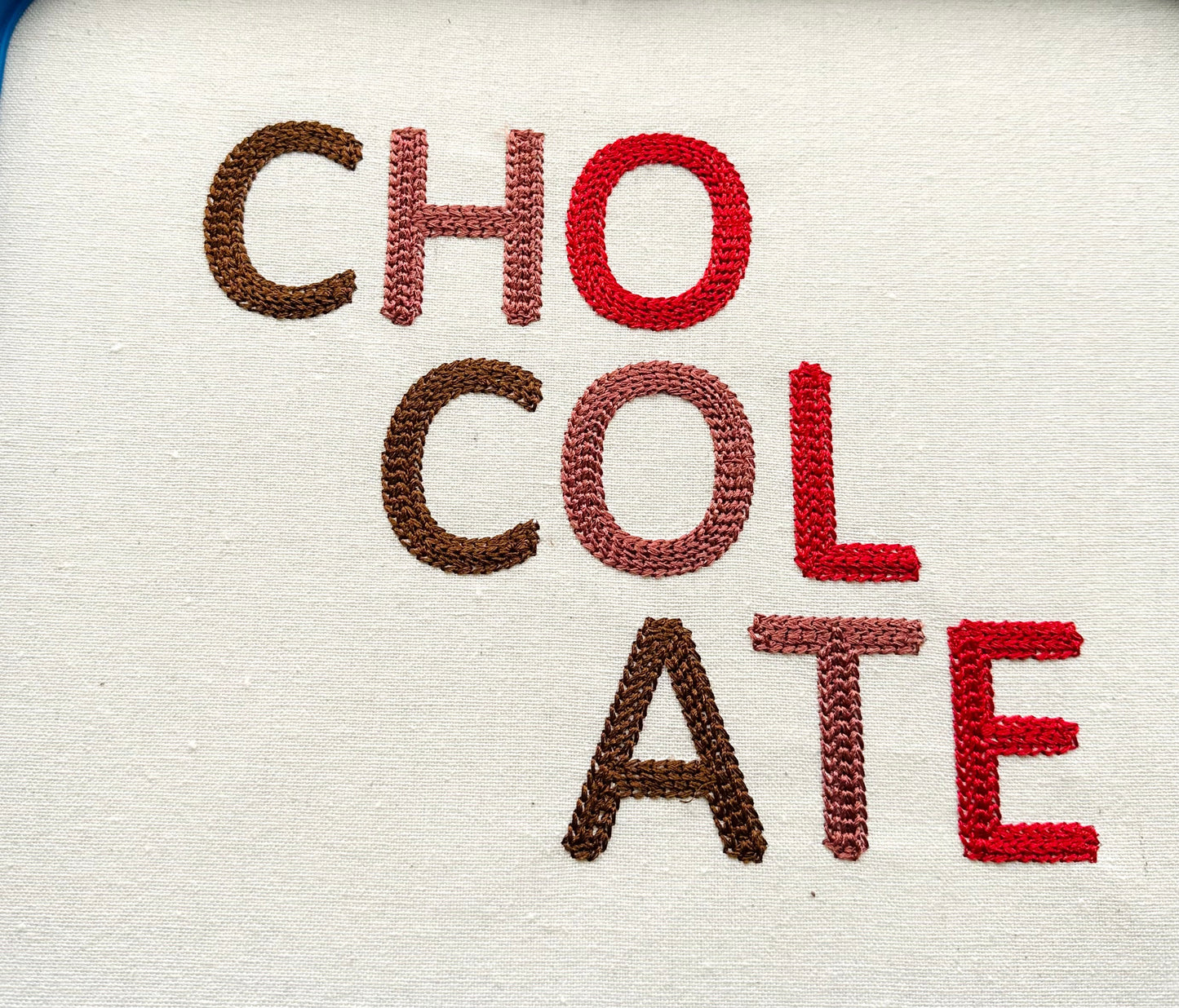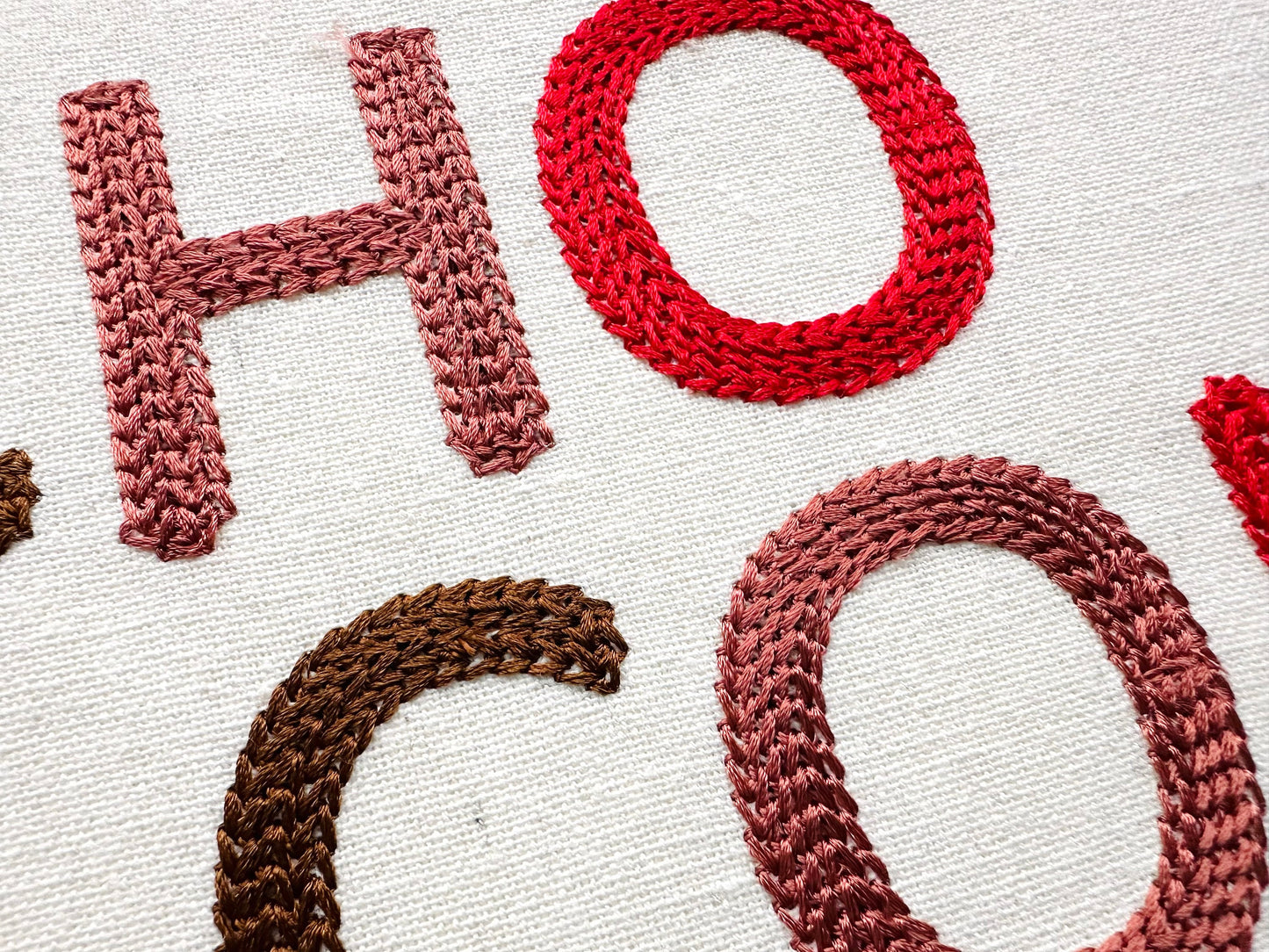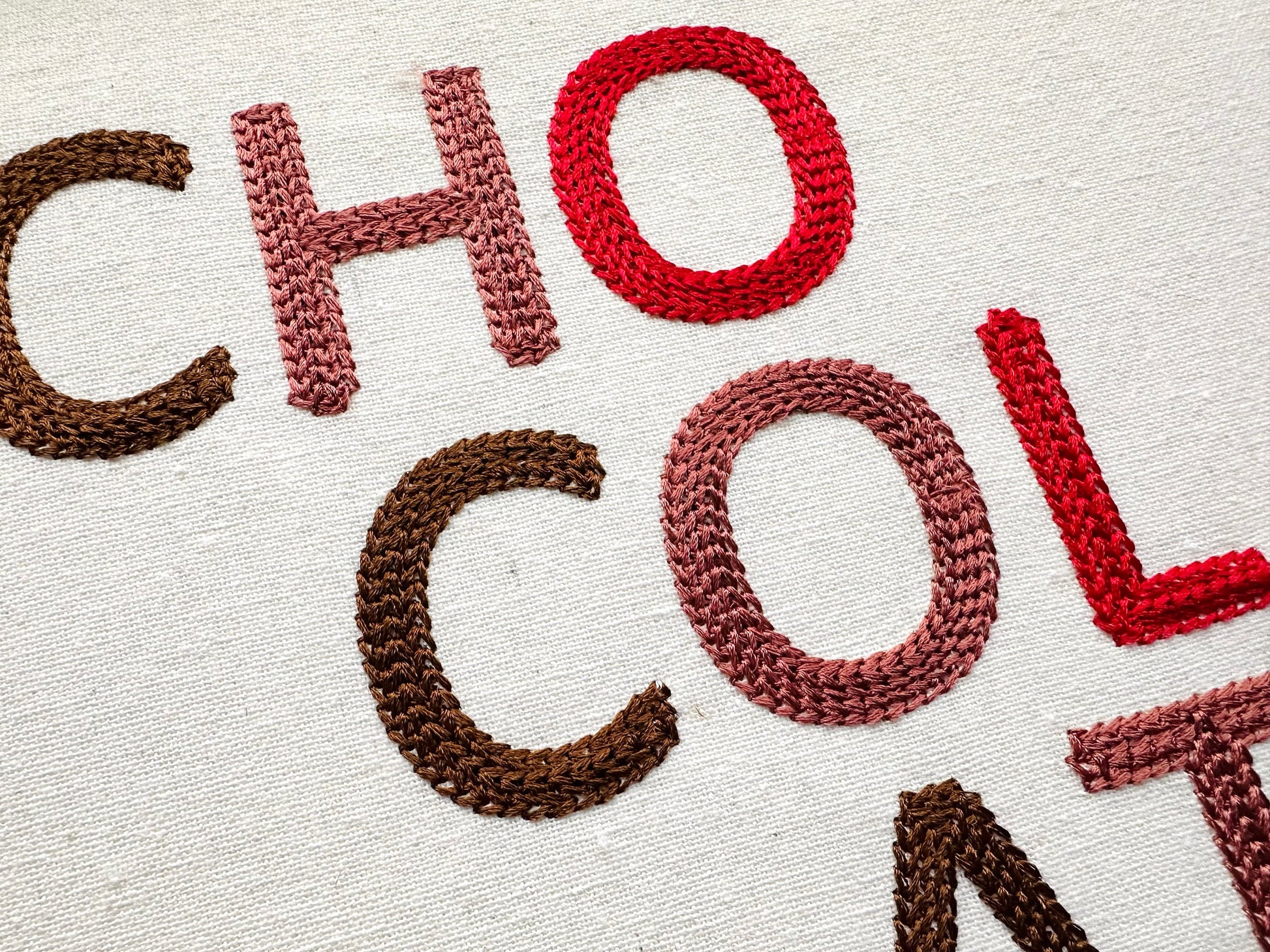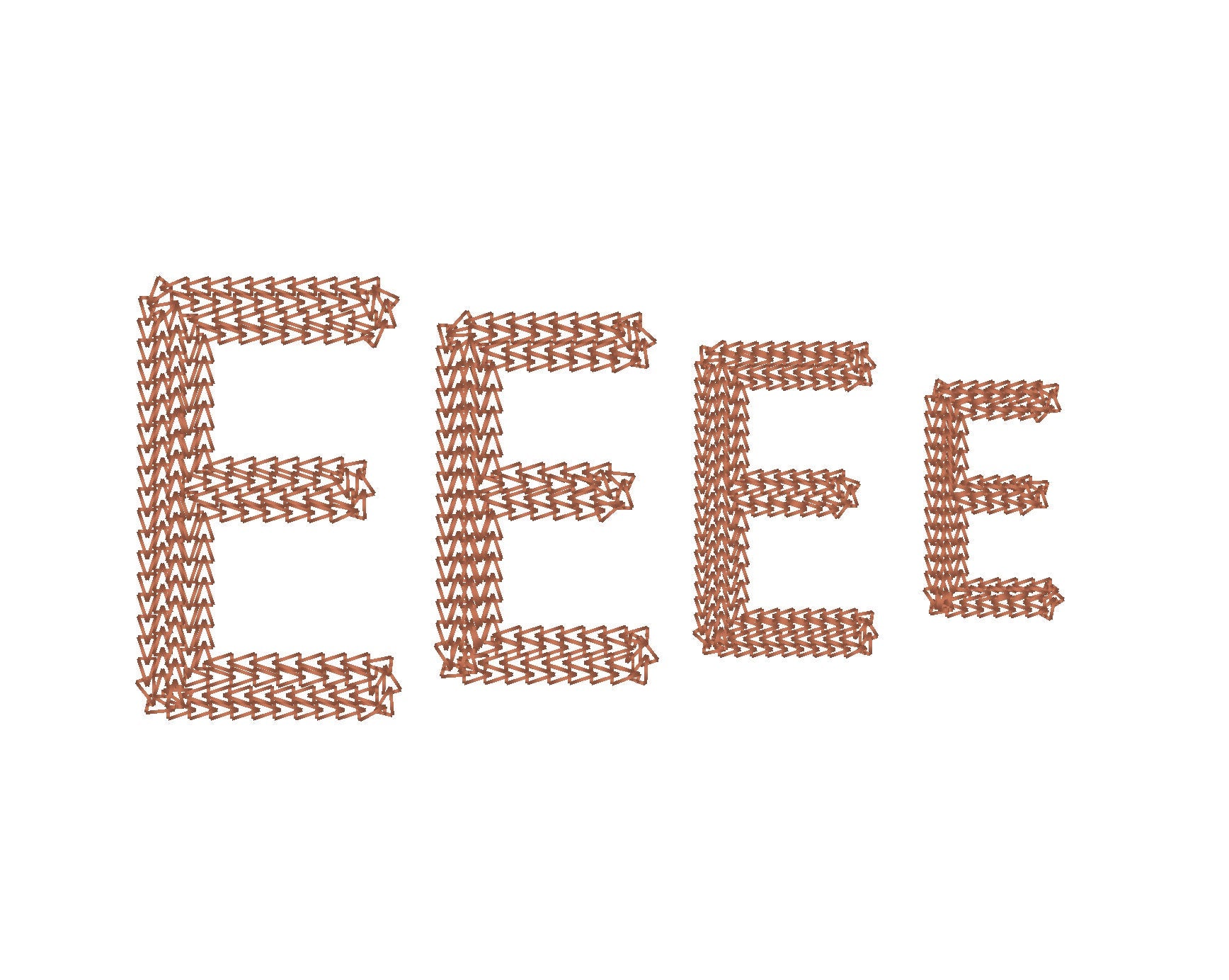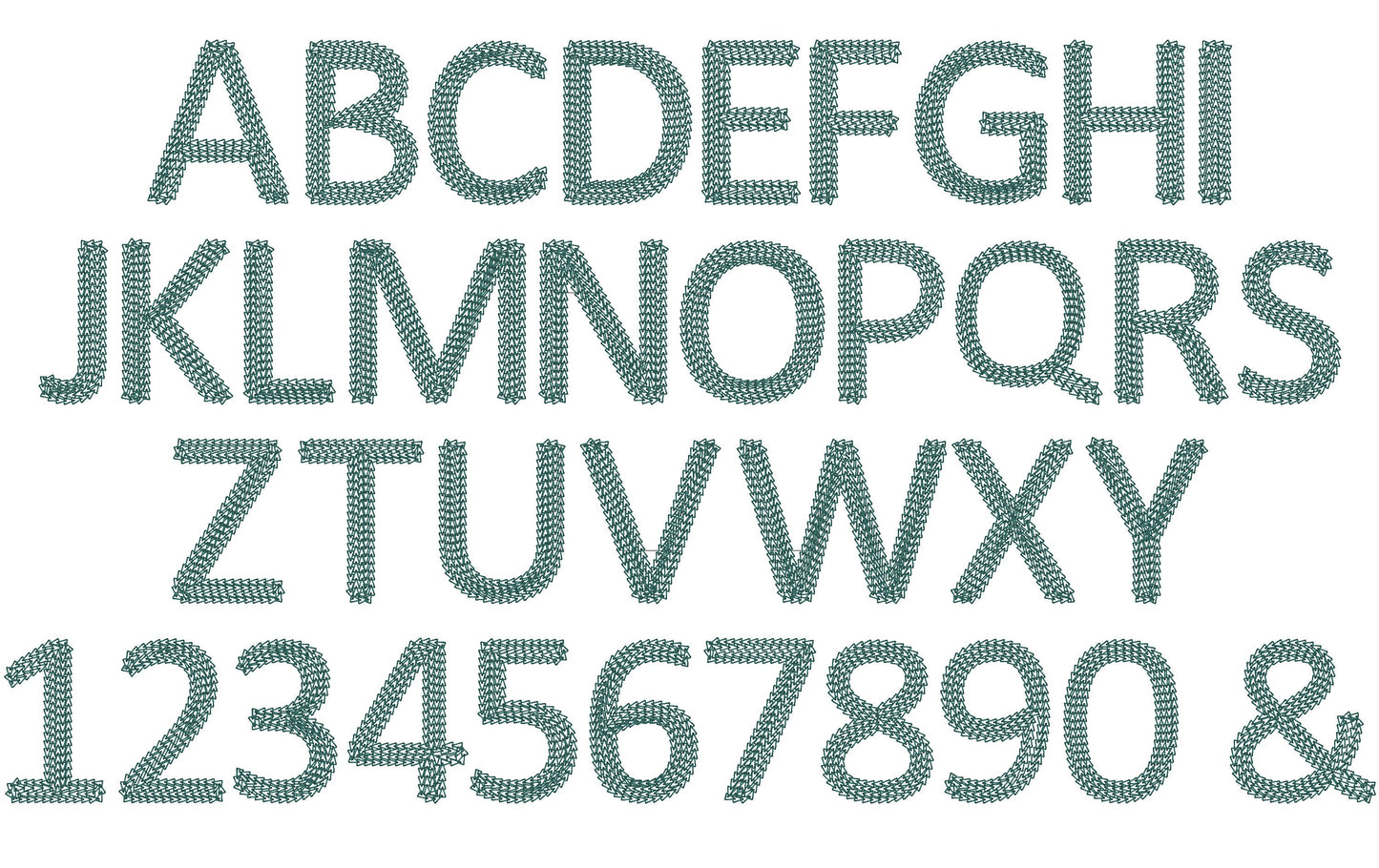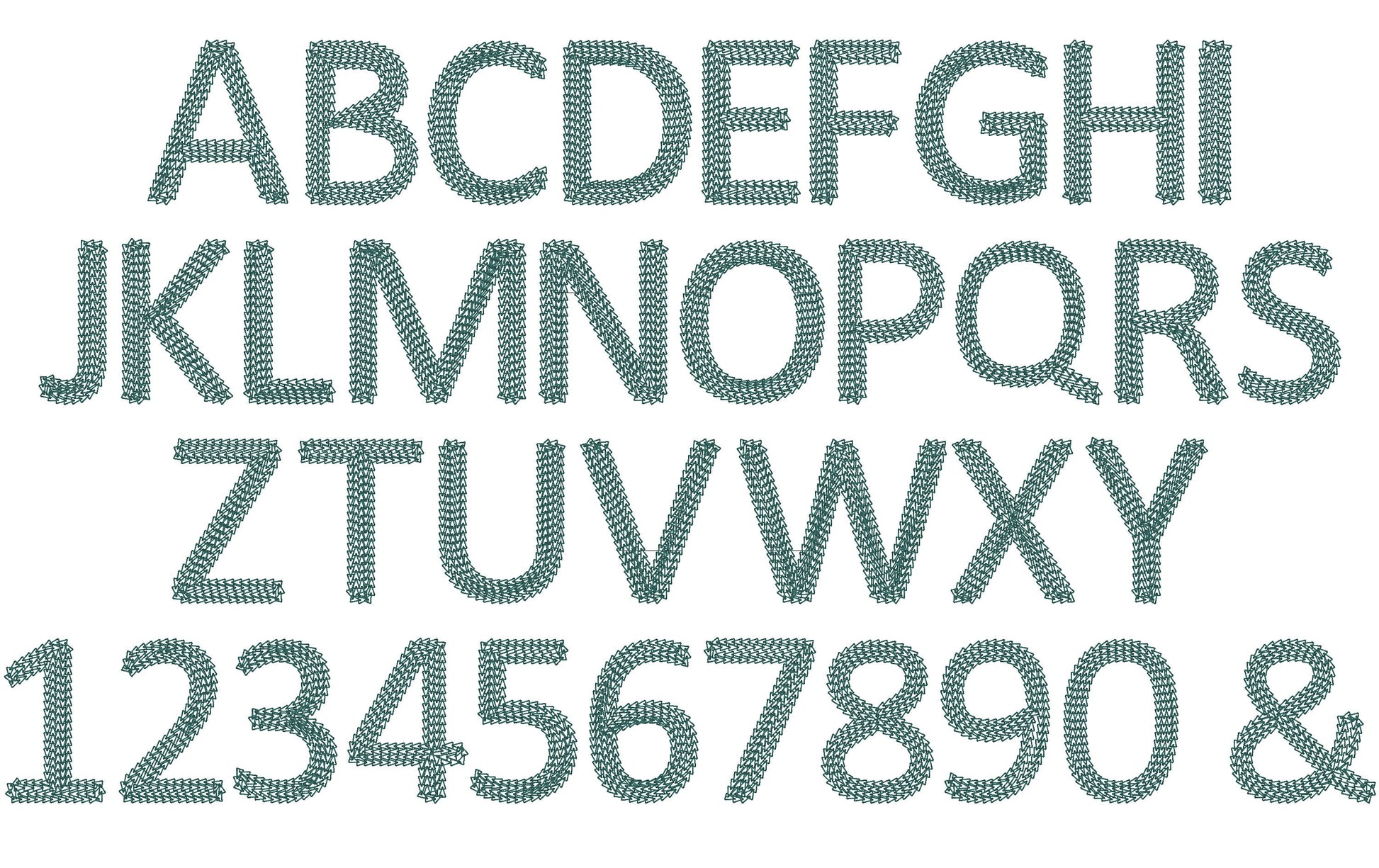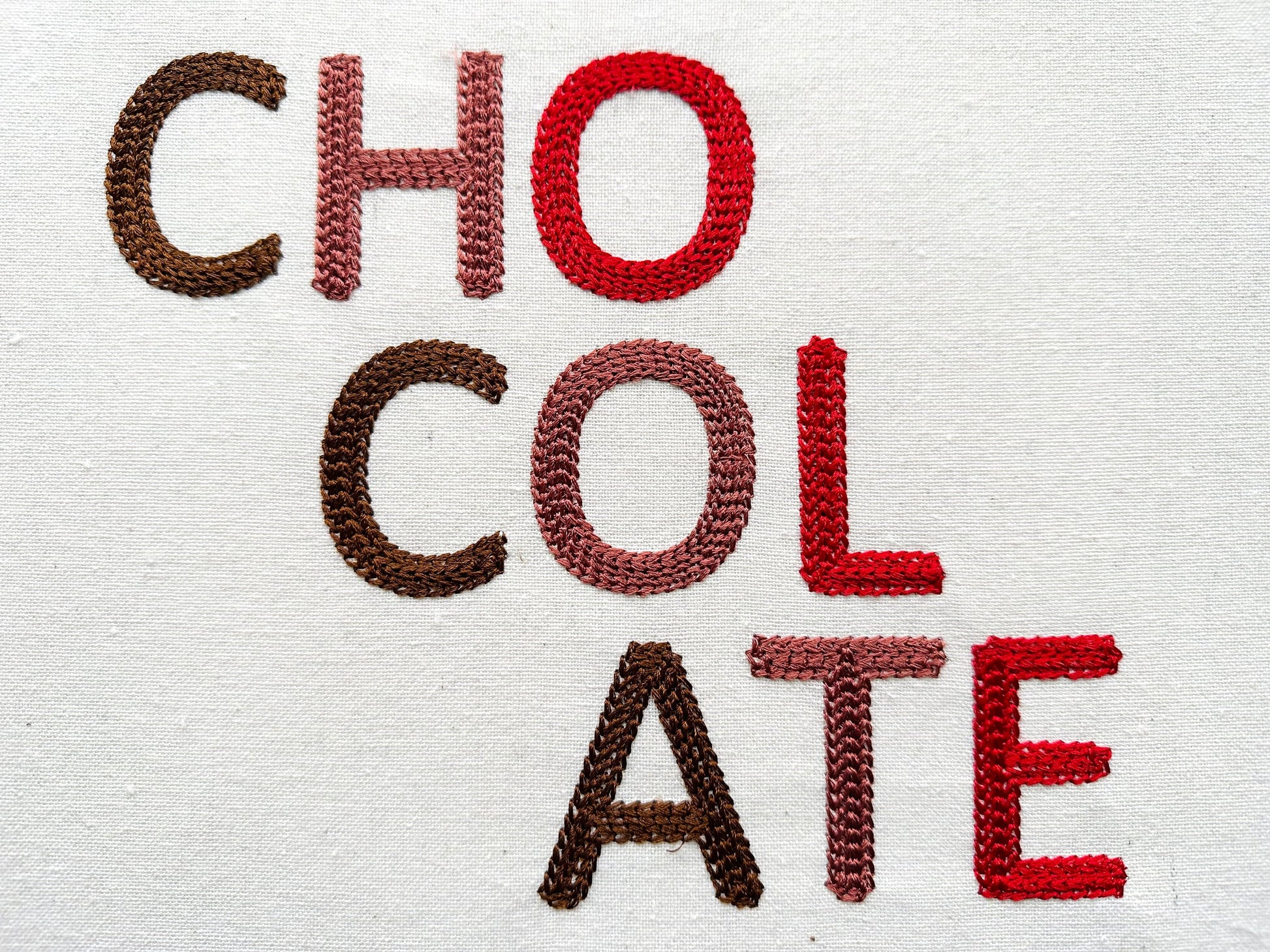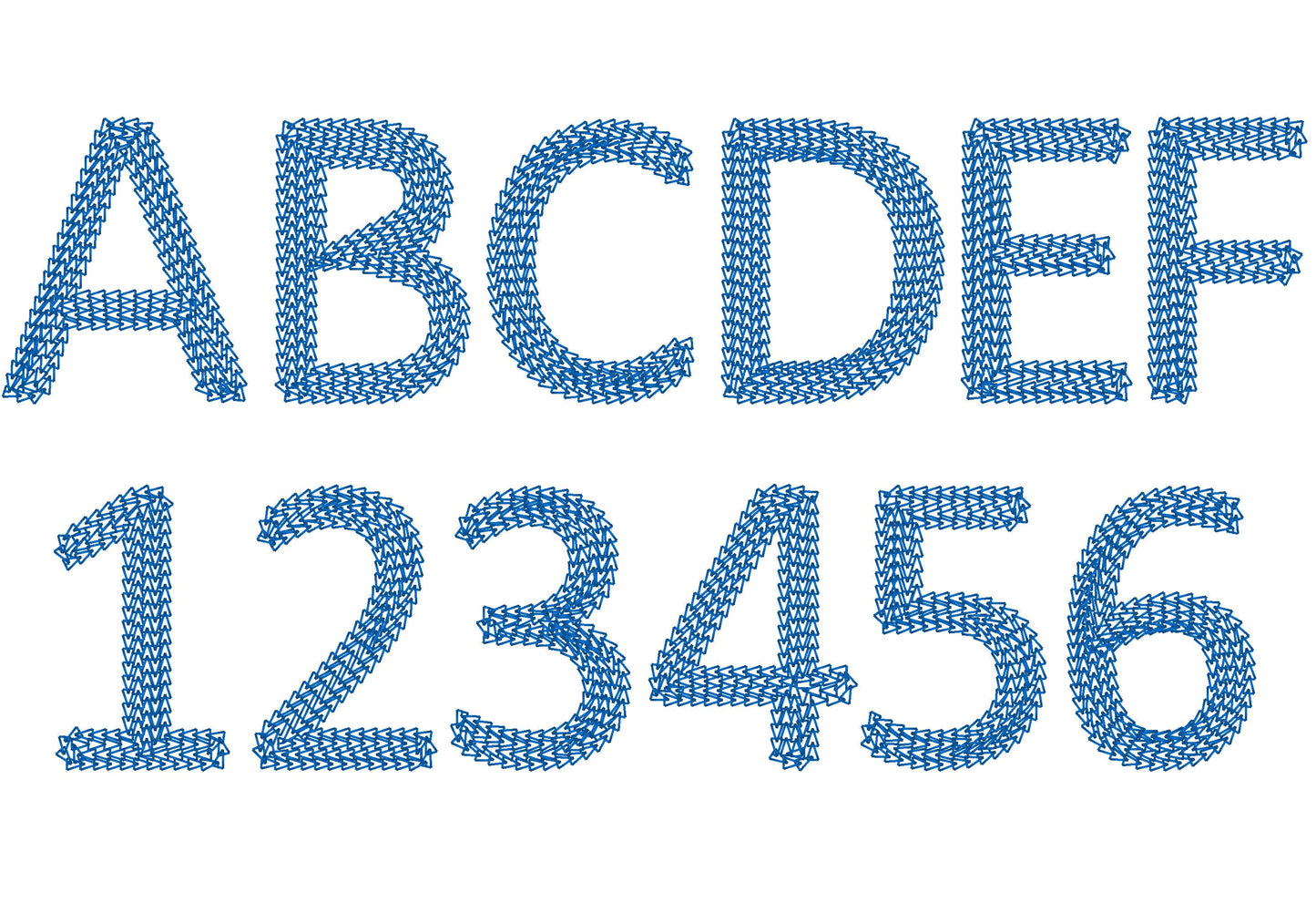
Or click to open the linkA block font in a light chain stitch with a hand-stitched look. Nice for names, monograms and short words on kids' clothes and gifts.
The letters come in four sizes: 1.4, 1.7, 2 and 2.5 inches. A chain stitch outlines each block letter for a handmade feel. Includes uppercase letters A to Z, numbers 0 to 9 and an ampersand.